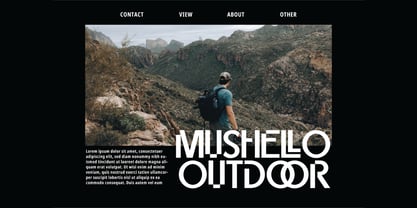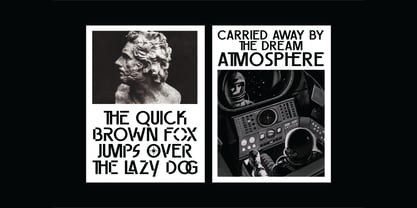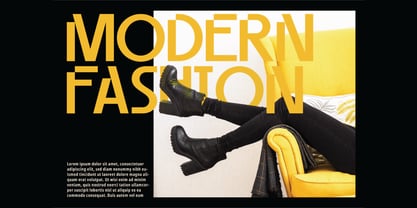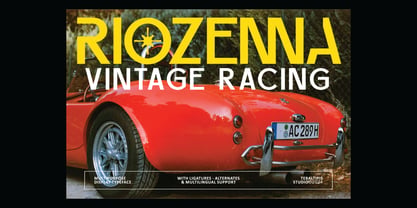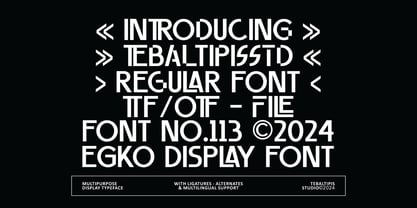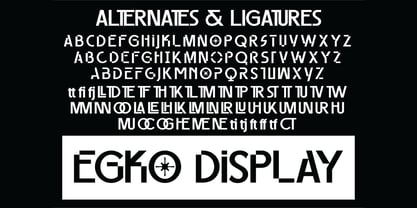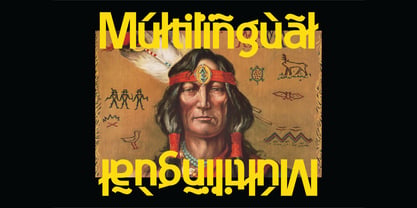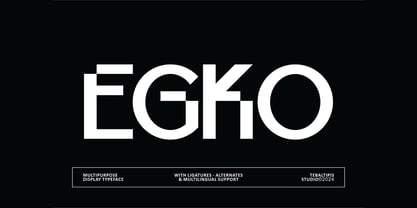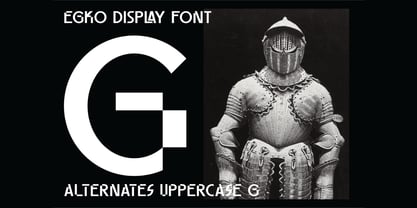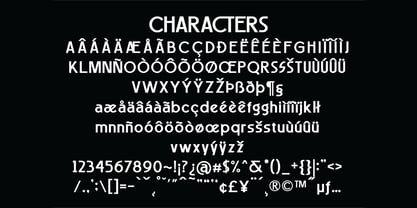
Egko Display
by Tebaltipis Studio
The Egko Display Font Family was designed by Dzulka Elfira and published by Tebaltipis Studio. Egko Display contains 1 styles. More about this family
Egko Display is a typeface with personality. You can use it as a logo, badge, insignia, packaging, headline, poster, etc The alternative characters in this font were divided into several OpenType features such as Stylistic Alternates, Stylistic Sets, and Ligature. The OpenType features can be accessed by using OpenType program such as Adobe Illustrator, Adobe Photoshop, and Adobe InDesign.